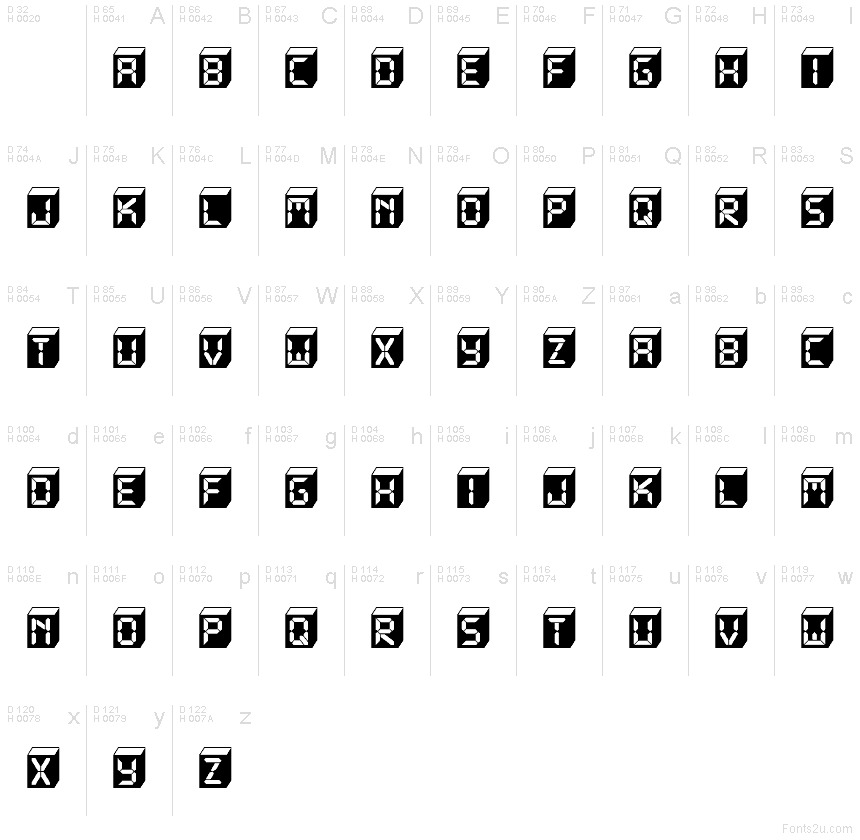
Lover Neon Regular
Lover Neon font by Vladimir Nikolic is a free 3D digital display typeface that looks like it’s been carved from glowing arcade cabinets and sci‑fi signage. Each letter feels like a tiny lightbox: faceted, beveled edges, sharp corners, and bright inner panels give it a chunky, illuminated vibe that jumps off dark backgrounds. It has a tight, modular rhythm that instantly says “retro future” without feeling cluttered or cheesy.
Using Lover Neon font, you can punch up gaming logos, esports branding, synthwave posters, nightclub flyers, YouTube thumbnails, and futuristic UI mockups. This free font shines at big sizes where its angular volume and glowing illusion can really sell the effect. Pair it with a simple geometric sans in smaller text and keep color palettes bold—neon on black or saturated gradients—to let its digital personality do the heavy lifting.